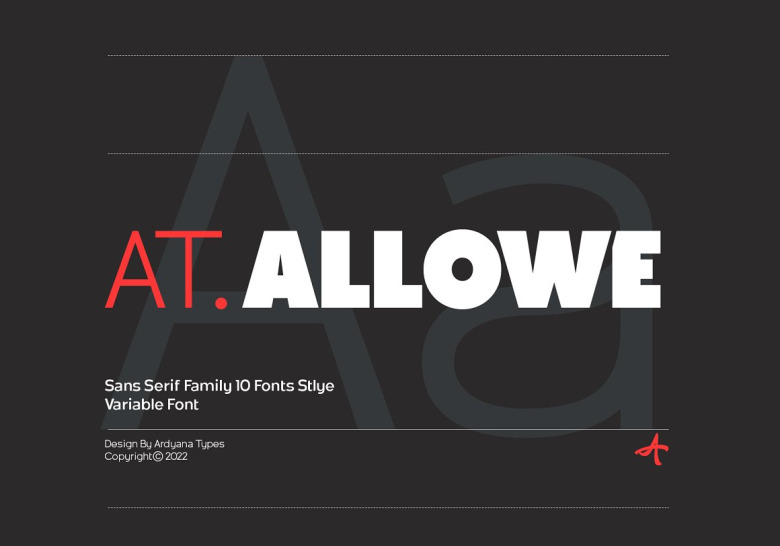
AT Allowe Font
AT Allowe Font based on geometric sans serif style and a modern elegant sans serif tagline. This font is available in eight different weights, from thin to black. That way you can use what works best for you. AT Allowe comes with all the latest professional features that can present a sophisticated, sleek and attractive look to your business or project for marketing needs.
It pairs perfectly with illustrated in modern serifs or scripts on the image above, but it also holds its own as a title and a face of an elegant brand. AT Allowe is available in many languages, Active Use regardless of its Company or language. It also contains alternative Ligatures and Stylistic Sets to give your design an attractive look.
AT Allowe Sans Serif Font